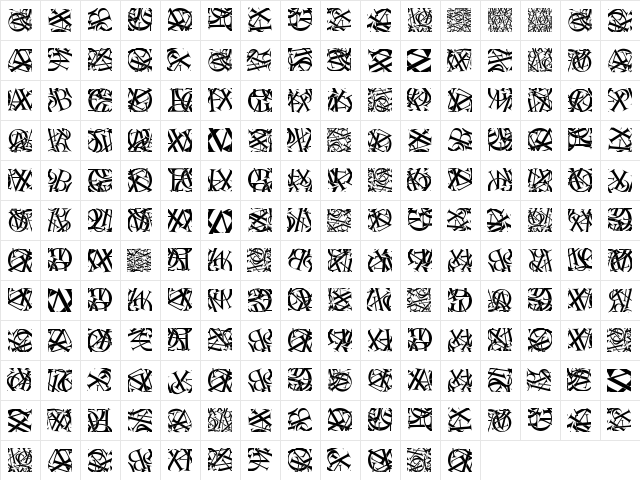
PalatinosTypeSoup Regular Font Preview
PalatinosTypeSoup Regular
Design Context for PalatinosTypeSoup Typeface
PalatinosTypeSoup is a composed and adaptable typeface that performs quietly and consistently across a wide range of design contexts.